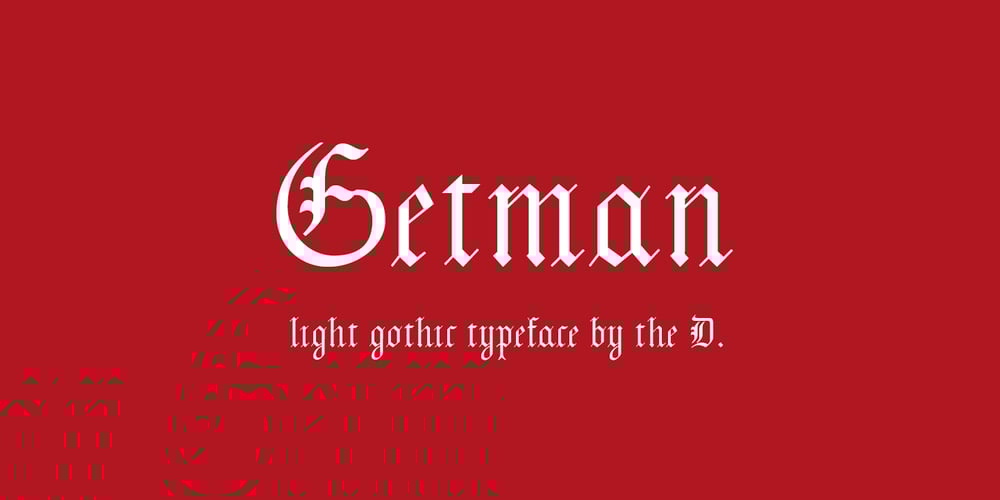
Getman
Getman font
Getman Font Family was designed by Dima Pole and published by Dima Pole. Getman contains 1 styles and family package options. Getman is a light Gothic typeface. It made all the rules and traditions of classic Gothic typeface, but it has lightweight shapes, making it easy to read and understood. Getman is based on the works of type masters 1910s. This font has all 104 European alphabets, all Slavic alphabets, OpenType features (ligatures, oldstyle numerals, fistorical forms, localized forms, fractions, ordinals and others). Getman has an historic beauty of the medieval Germanic national script. Glory to the Germans!